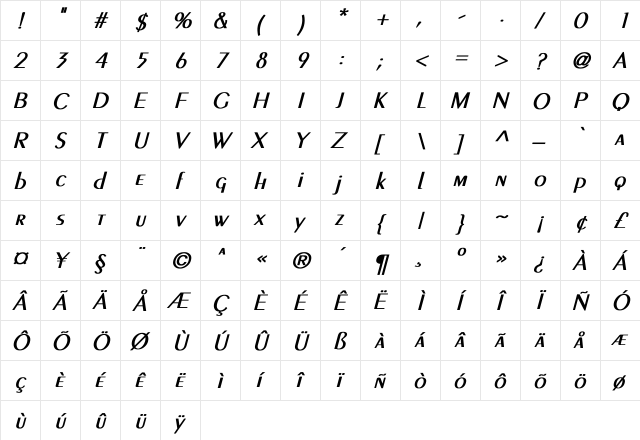
Larwell-Light Bold Italic
Design Context for Larwell-Light Typeface
Larwell-Light offers clean, dependable letterforms without strong stylistic allegiance, making it a practical choice for designers who need flexibility. The slanted form adds forward momentum and visual energy. The heavy weight commands attention and anchors typographic hierarchies.